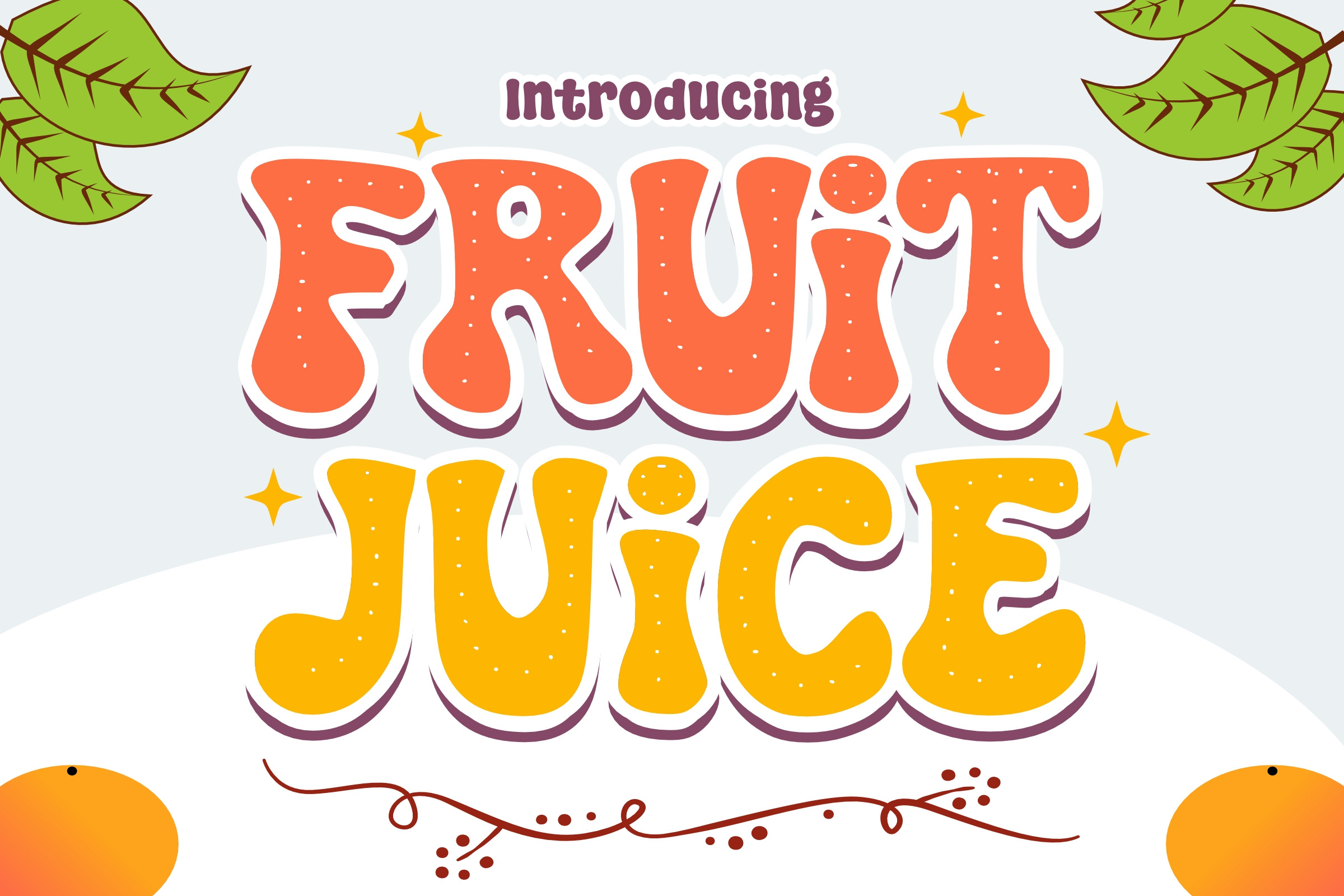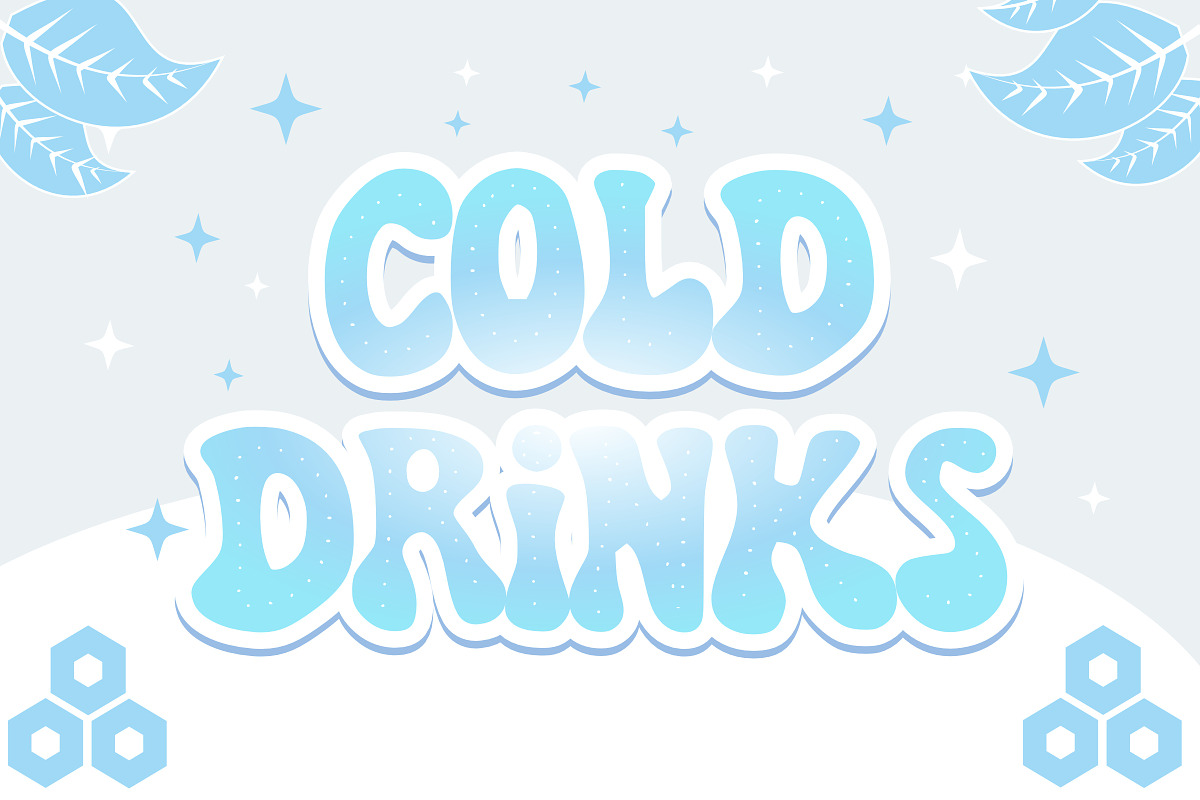
Fruit Juice - Cartoon Font Types
Introducing Fruit Juice – a Juice font that evokes joy and imagination. More than just a typeface, this font is the perfect companion for your projects that need a touch of fun. With its cheerful character and adorable charm, Fruit juice easily stands out in titles or posters, turning an ordinary task into a joyful celebration. Whether you’re celebrating a birthday or adding a touch of fun to a party, Fruit Juice is a cheerful font that is sure to delight, entertain, and captivate.